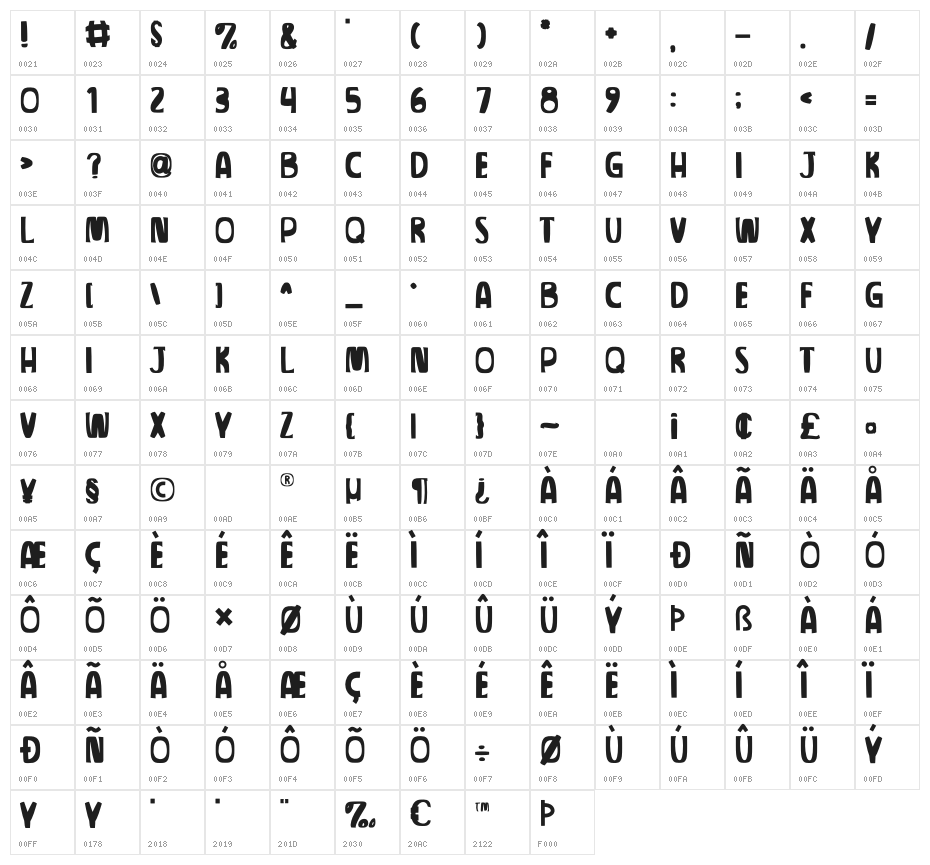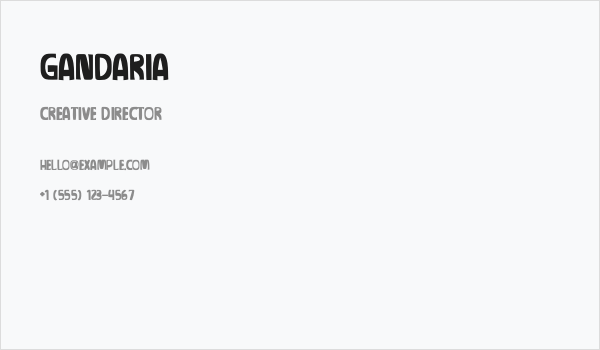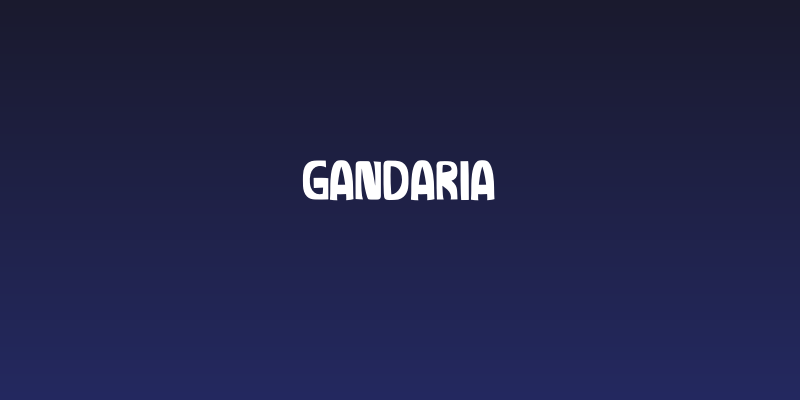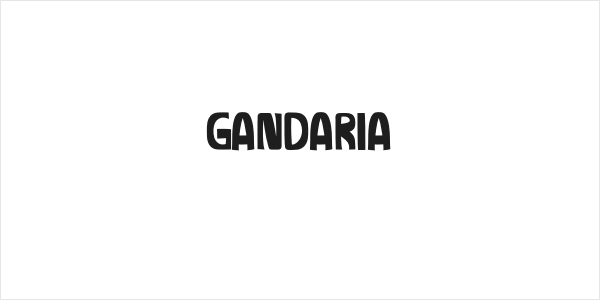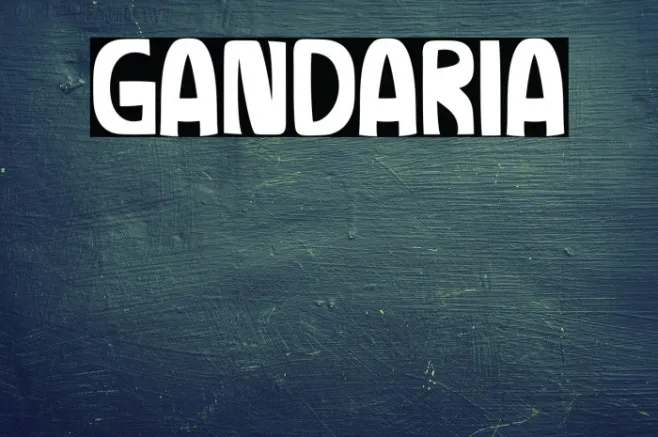
GANDARIA Font
GANDARIA Description
This font features a bold and playful design with a distinctly hand-drawn aesthetic. The characters are thick and rounded, giving them a friendly and approachable feel. The uppercase letters are particularly striking, with unique curves and angles that add a sense of movement and energy. The lowercase letters maintain this playful style, with consistent stroke widths and rounded edges. Numbers and special characters follow the same design principles, ensuring a cohesive look across all text elements. The overall appearance is both modern and whimsical, making it ideal for creative and informal projects.
| Overall Style | Playful, Modern |
| Proposed Projects | Ideal for children's books, playful branding, posters, and creative social media graphics. |